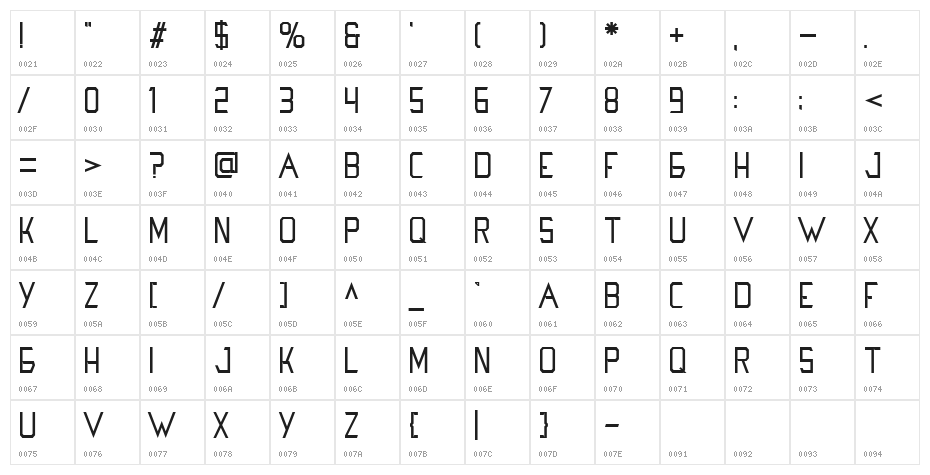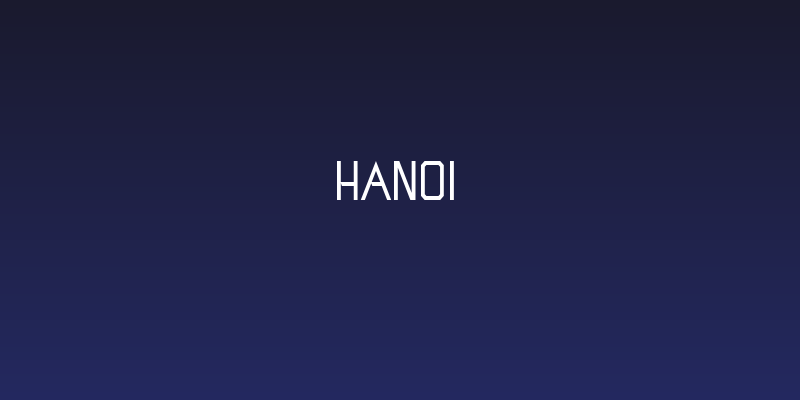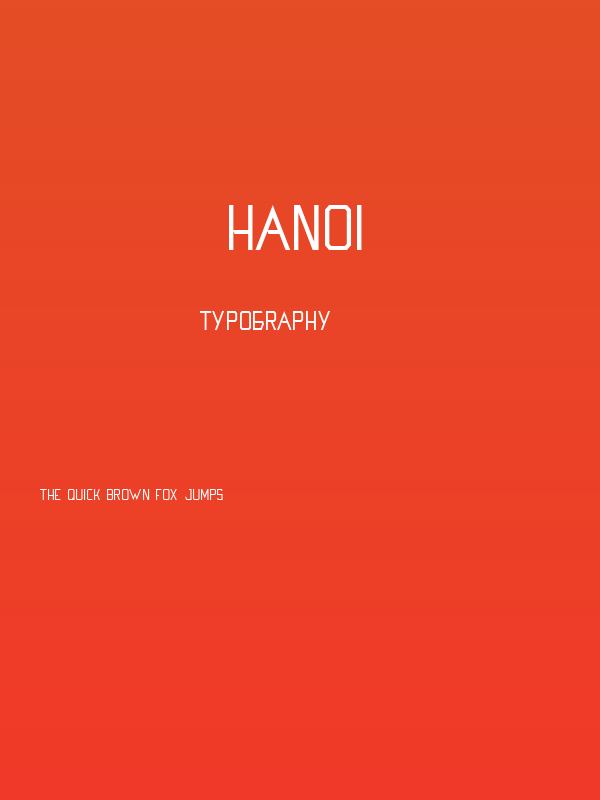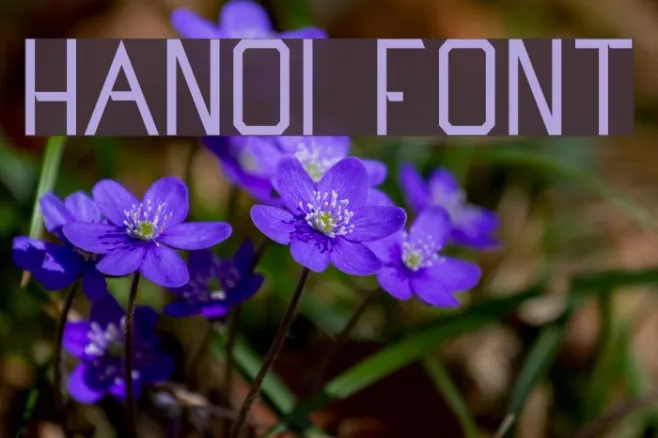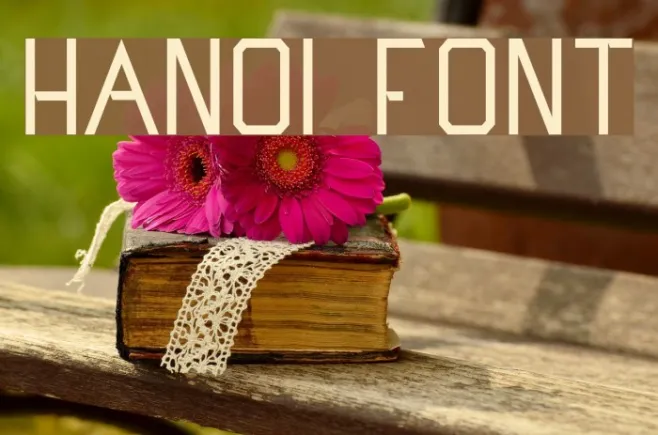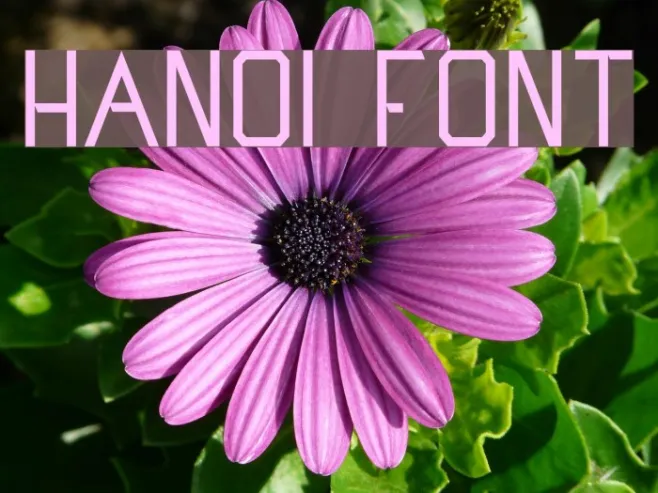
Hanoi Font
Hanoi Description
This font features a geometric and angular design, characterized by sharp edges and a modern aesthetic. The uppercase letters are bold and structured, with a consistent height and width that give them a uniform appearance. The lowercase letters maintain the same angular style, offering a cohesive look across the typeface. Numbers are similarly designed, with a clear and legible form that complements the letters. Special characters are included, maintaining the same geometric style, making this font versatile for various uses. The overall design is clean and contemporary, suitable for projects that require a modern and edgy look.
HANOI UPPERCASE
HANOI LOWERCASE
HANOI OTHER CHARS
| Proposed Projects | Ideal for branding, posters, digital media, and any project requiring a modern, edgy aesthetic. |